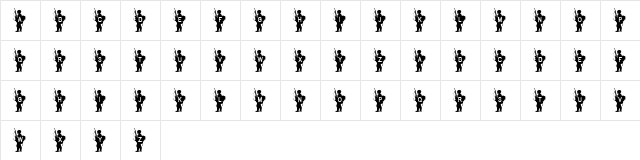
Battleship Warriors Regular
Design Context for Battleship Warriors Typeface
Battleship Warriors is a composed and adaptable typeface that performs quietly and consistently across a wide range of design contexts.